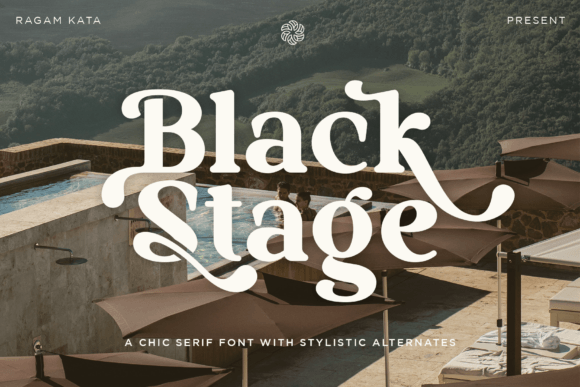
The Retro Charm of Black Stage Font: A Designer’s Delight
I still remember the design project that led me to discover the Black Stage Font – a vintage-inspired poster for a local theater’s production of a classic play. I was on the hunt for a font that could transport viewers back in time, evoking the elegance of a bygone era. After hours of scrolling through font libraries, I stumbled upon Black Stage, and it was love at first sight! ✨
- ✅ The perfect blend of elegant serif style and classic vintage touch, making it versatile for various design projects.
- ✨ The stylistic alternates feature allows for flexibility in designing unique text appearances, adding variety and dynamics to my designs.
- ✅ Suitable for a wide range of applications, including titles, posters, banners, invitation cards, and branding designs.
- ✅ The font’s timeless elegance ensures that my designs will remain stylish for years to come.
While working with Black Stage Font, I did encounter a few minor limitations: 🤔
- ⚠️ The font’s vintage feel might not be the best fit for very modern or minimalist designs.
- ⚠️ Some users might find the font’s serifs a bit too ornate for certain projects.
The Designer’s Inspiration Behind Black Stage Font
The creator of Black Stage Font drew inspiration from the Golden Age of Hollywood and the vintage posters of the 1920s-1950s. The font’s design combines the elegance of serif typography with the charm of classic vintage typography, resulting in a unique and captivating font that’s perfect for designers looking to add a touch of nostalgia to their work.
Q: Is Black Stage Font suitable for body text?
A: While Black Stage Font is primarily designed for headlines and display text, it can be used for body text in certain contexts. However, its vintage feel and elegant style may make it more suitable for titling and emphasis text.